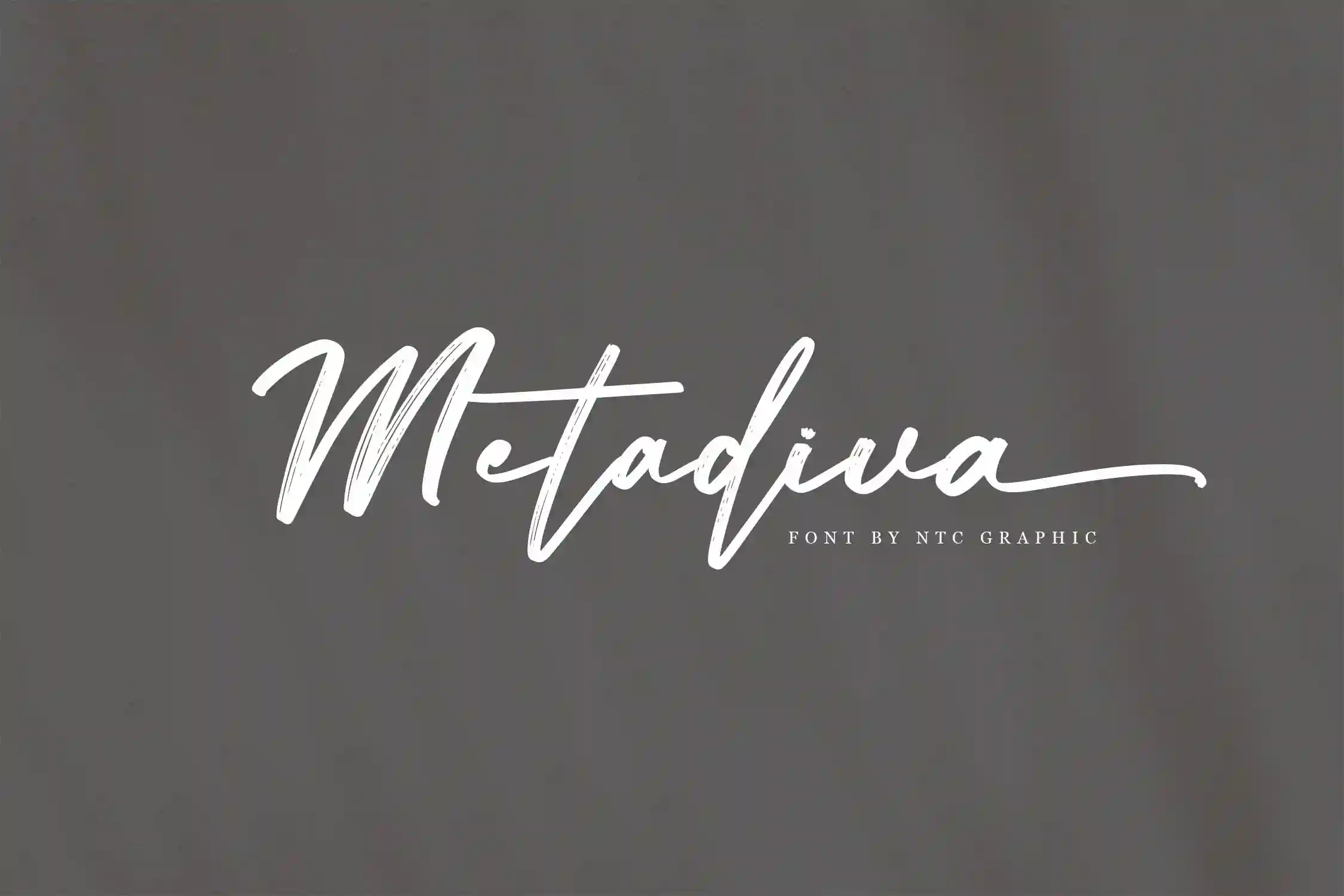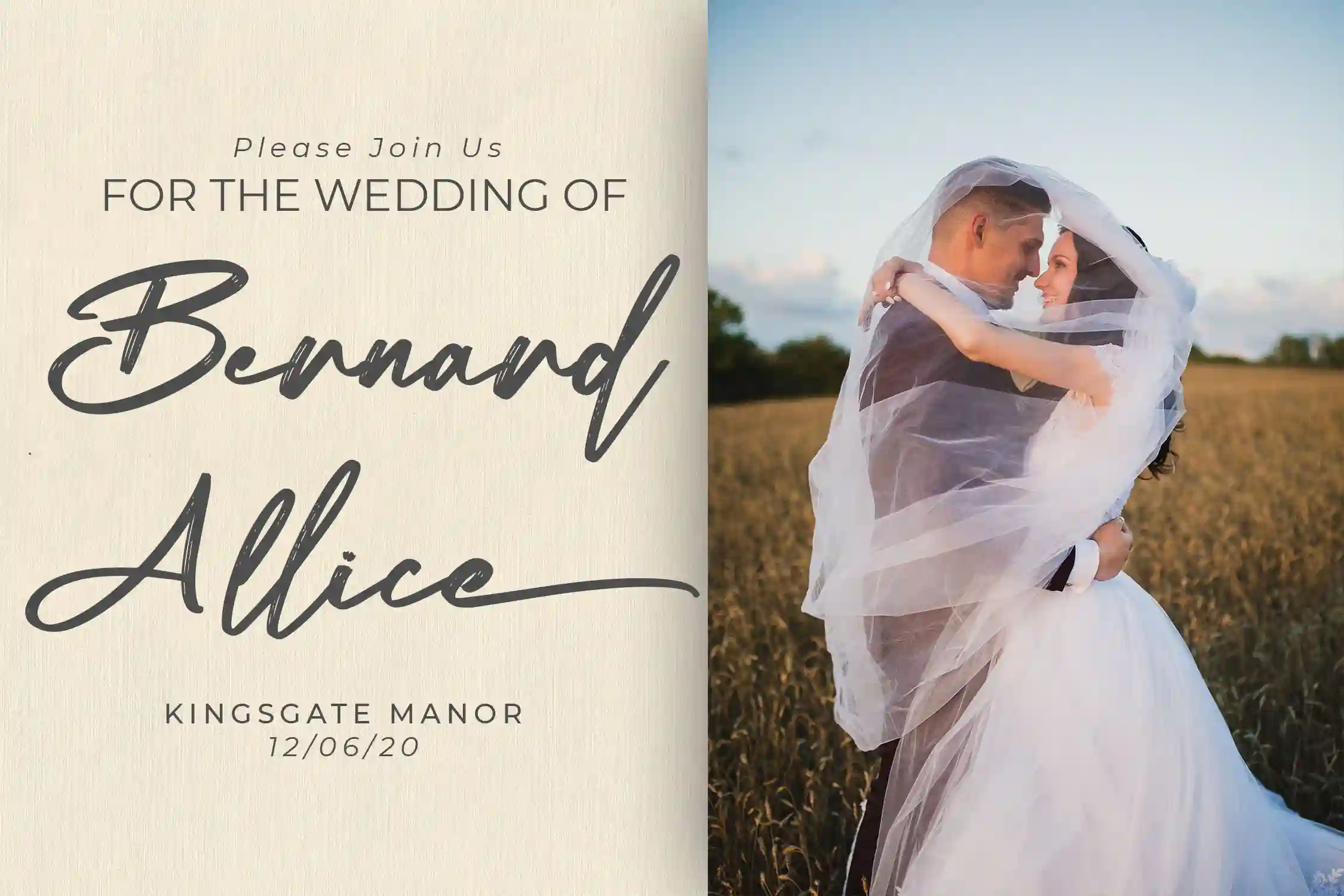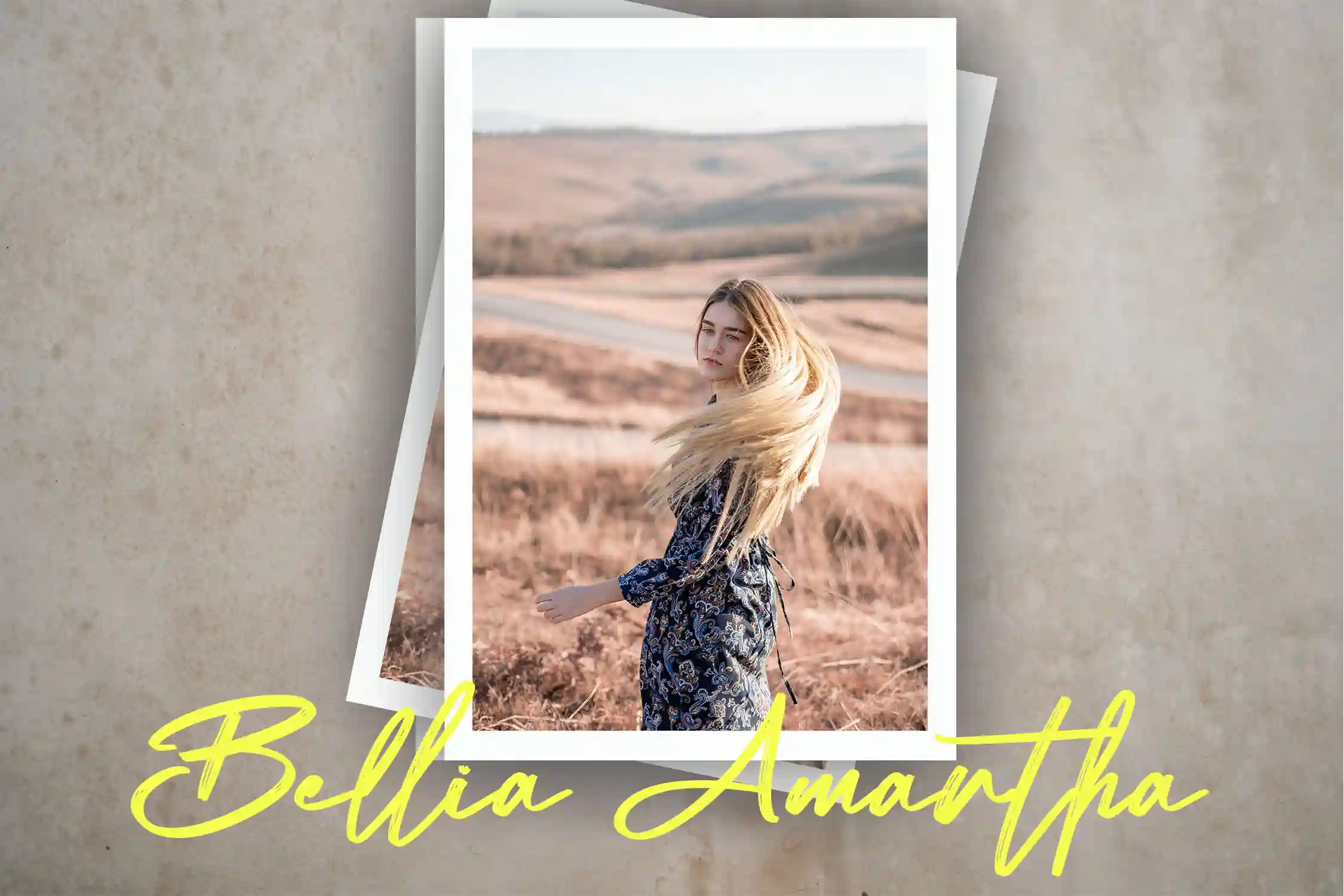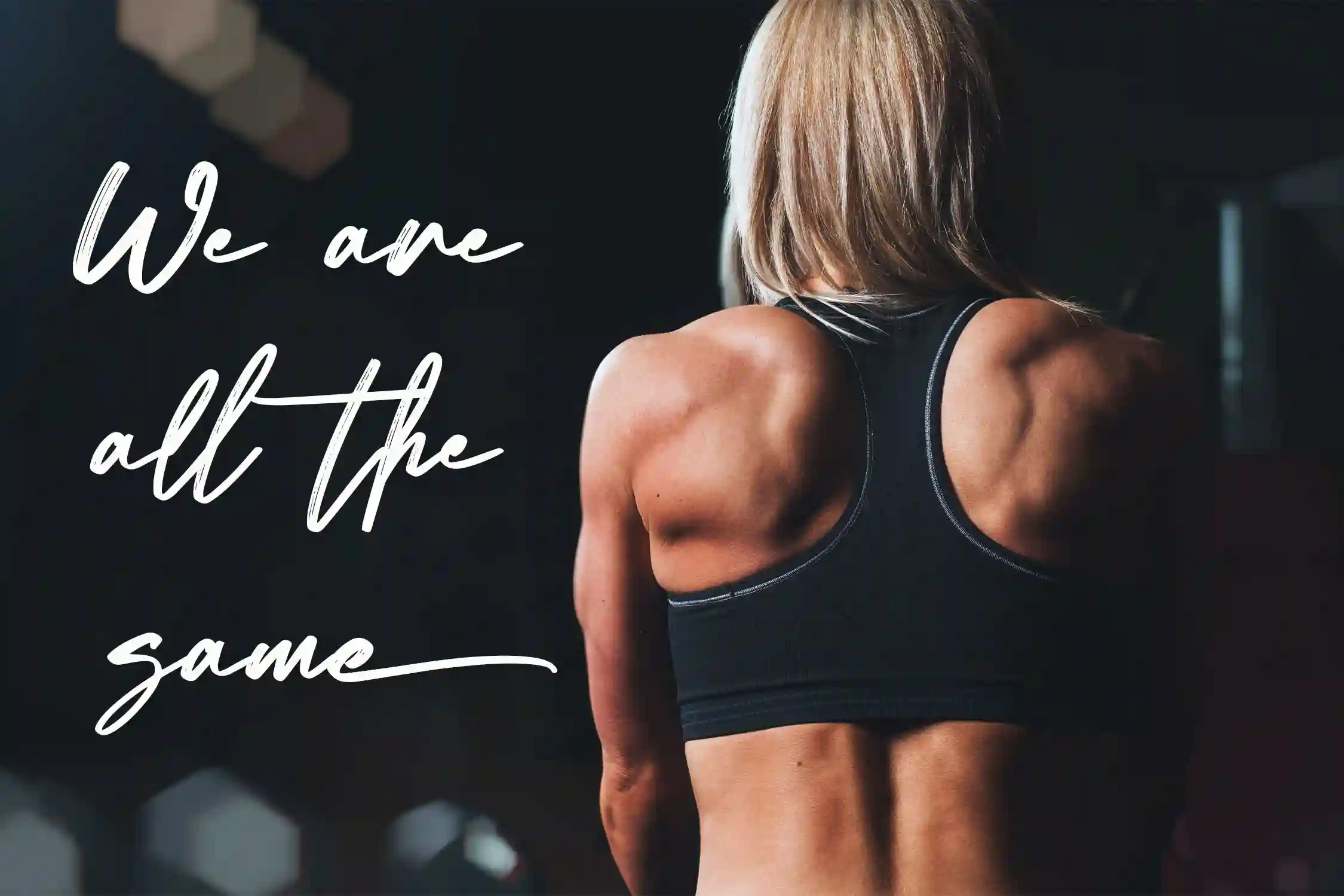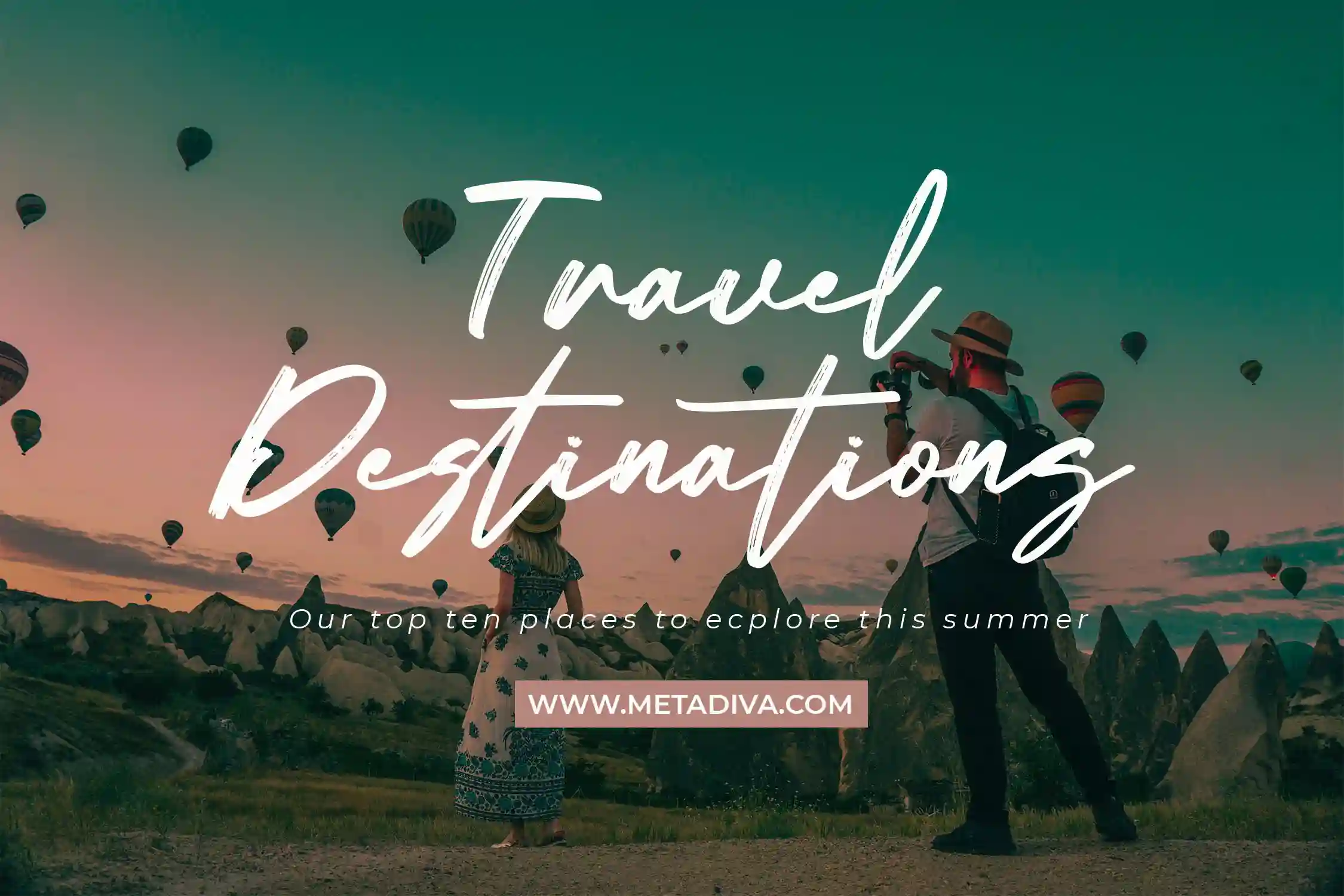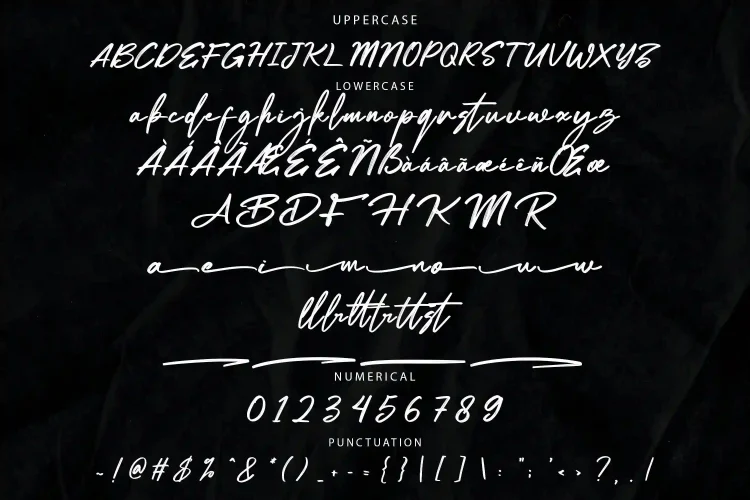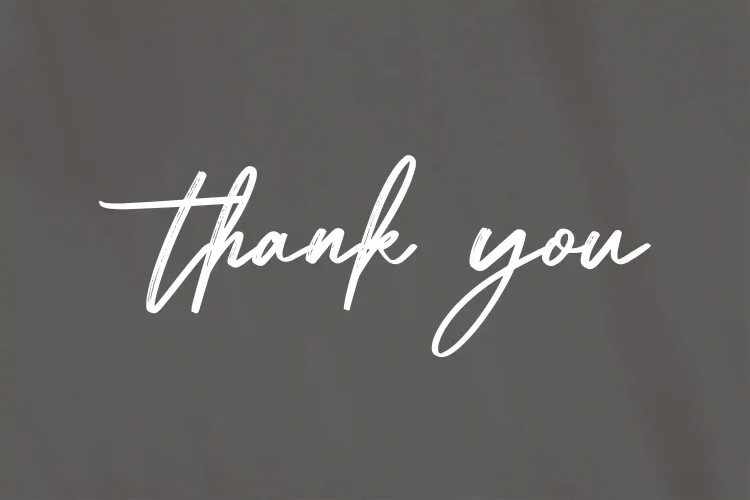
Metadiva
Metadiva – Hand Brush Script Font
Introducing Metadiva, a dynamic script font with a bold hand brush style. Its uniquely crafted characters add an artistic and expressive touch to your designs, making it perfect for enhancing the visual appeal of projects like branding, packaging, invitations, and more. With its creative brush strokes, Metadiva brings a lively, handcrafted feel to any design.
Font Features:
• Includes ligatures, stylistic alternates, and swashes
• Multilingual support for diverse uses
Enhance your designs with the artistic flair of Metadiva hand brush script font!